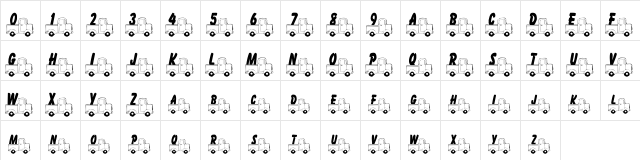
101 Lil Mikes Pup Regular Font Preview
101 Lil Mikes Pup Regular
101 Lil Mikes Pup Regular Font Details
Design Context for 101 Lil Mikes Pup Typeface
101 Lil Mikes Pup is a composed and adaptable typeface that performs quietly and consistently across a wide range of design contexts.